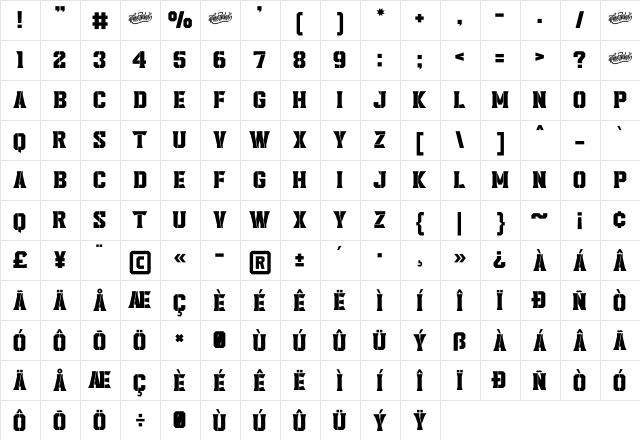
Headcorps Stencil Regular
Design Context for Headcorps Stencil Typeface
Headcorps Stencil borrows the utilitarian aesthetic of stencil lettering, with its characteristic cutaways and no-frills construction lending an industrial edge.
Ideal for industrial branding, streetwear, military-adjacent aesthetics, and urban signage projects.
Pro Tip: Pair Headcorps Stencil with raw, utilitarian design elements — exposed concrete textures, flat colour, and minimal ornamentation suit it well.